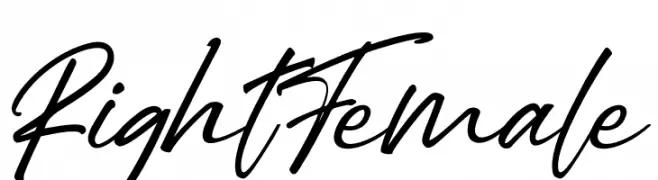
A bold, cursive handwritten font with fluid and dynamic strokes.
A modern, handwritten script font with fluid, elegant strokes.
A graceful and elegant script font with flowing, connected strokes.
A lively, expressive handwritten font with fluid, dynamic strokes.
A fluid and elegant handwritten script font with a personal touch.
A fluid and elegant handwritten cursive font with seamless connections.
A cursive, handwritten font with elegant, flowing letters.
A bold, cursive script font with dynamic, flowing strokes.
A modern, elegant cursive font with a calligraphic style.
A bold, dynamic script font with a handwritten appearance.